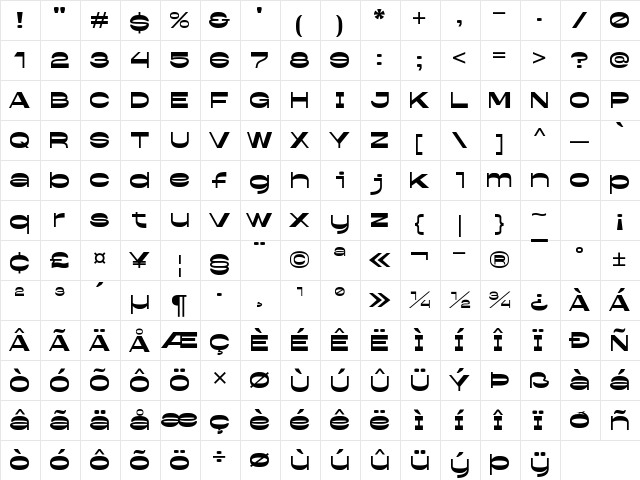
Quartro Regular
| Foundry | Sons of Baidlowi |
| Designer | Muhammad Jauhar Azmi |
Design Context for Quartro Typeface
Quartro offers clean, dependable letterforms without strong stylistic allegiance, making it a practical choice for designers who need flexibility.